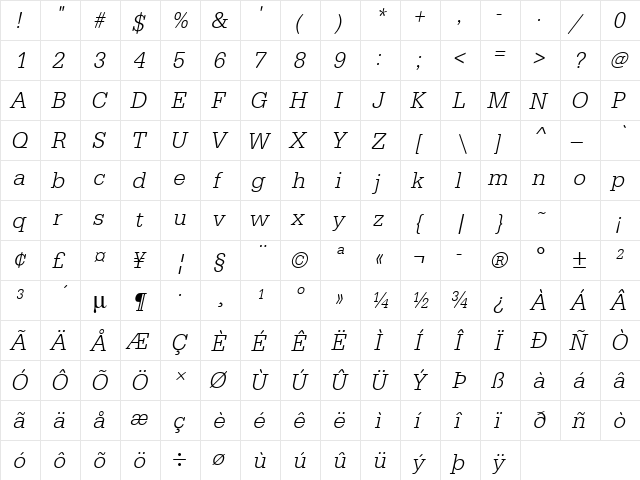
URWTypewriterTLigNar Oblique
Design Context for URWTypewriterTLigNar Typeface
URWTypewriterTLigNar uses fixed-width spacing throughout, giving it the structured, systematic character associated with coding environments and technical documentation. Its italic angle brings a sense of urgency and motion to the letterforms.
A natural fit for code editors, technical documentation, developer-focused branding, and terminal-inspired UI.
Pro Tip: Pair URWTypewriterTLigNar with a proportional sans for UI contexts where code-style labels and regular body copy need to coexist.